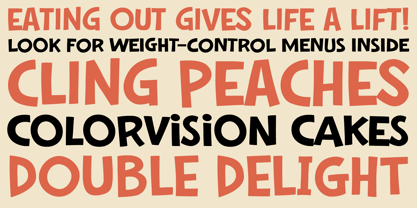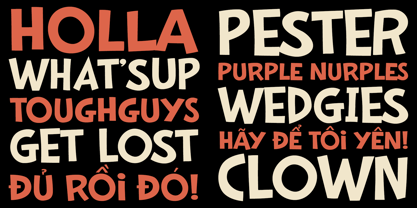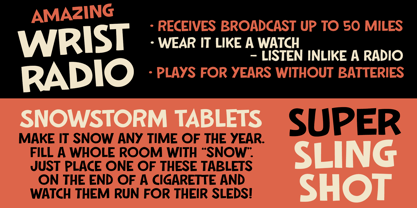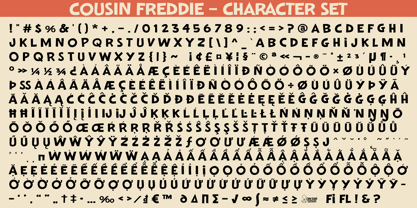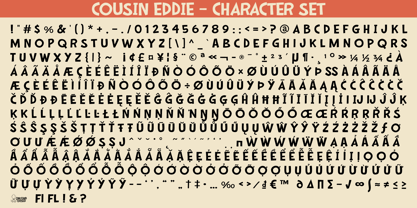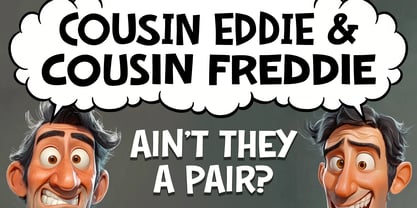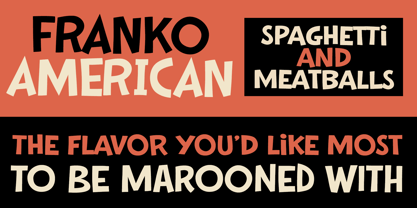
Cousin
by One Eyed Squid
The Cousin Font Family was designed by Brian J. Bonislawsky, Dave Cohen and published by One Eyed Squid. Cousin contains 2 styles and family package options.
Hey cousin, what's buzzin'? Why it's Eddie and Freddie the fabulous font duo that fell straight off the same twisted family tree! Wacky and loose like the family roots, this pair share a hilarious heritage to make your next project a relative success!
(The Cousin's Eddie & Freddie contain an extended Latin character set with added Vietnamese support.)